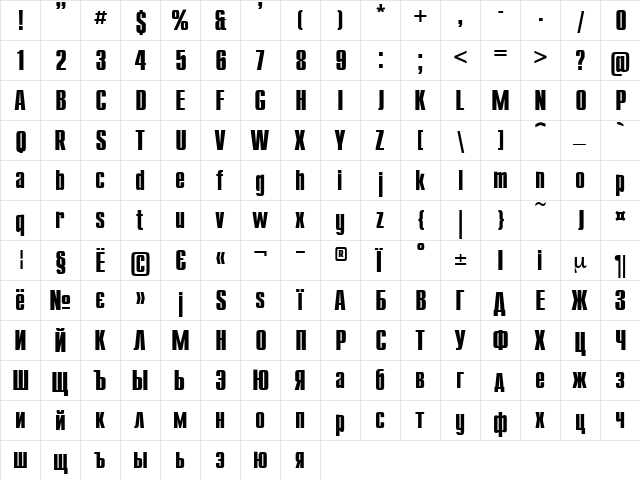
Anons Bold
Design Context for Anons Typeface
Anons is a composed and adaptable typeface that performs quietly and consistently across a wide range of design contexts. Its bold stroke weight gives it real presence on the page.